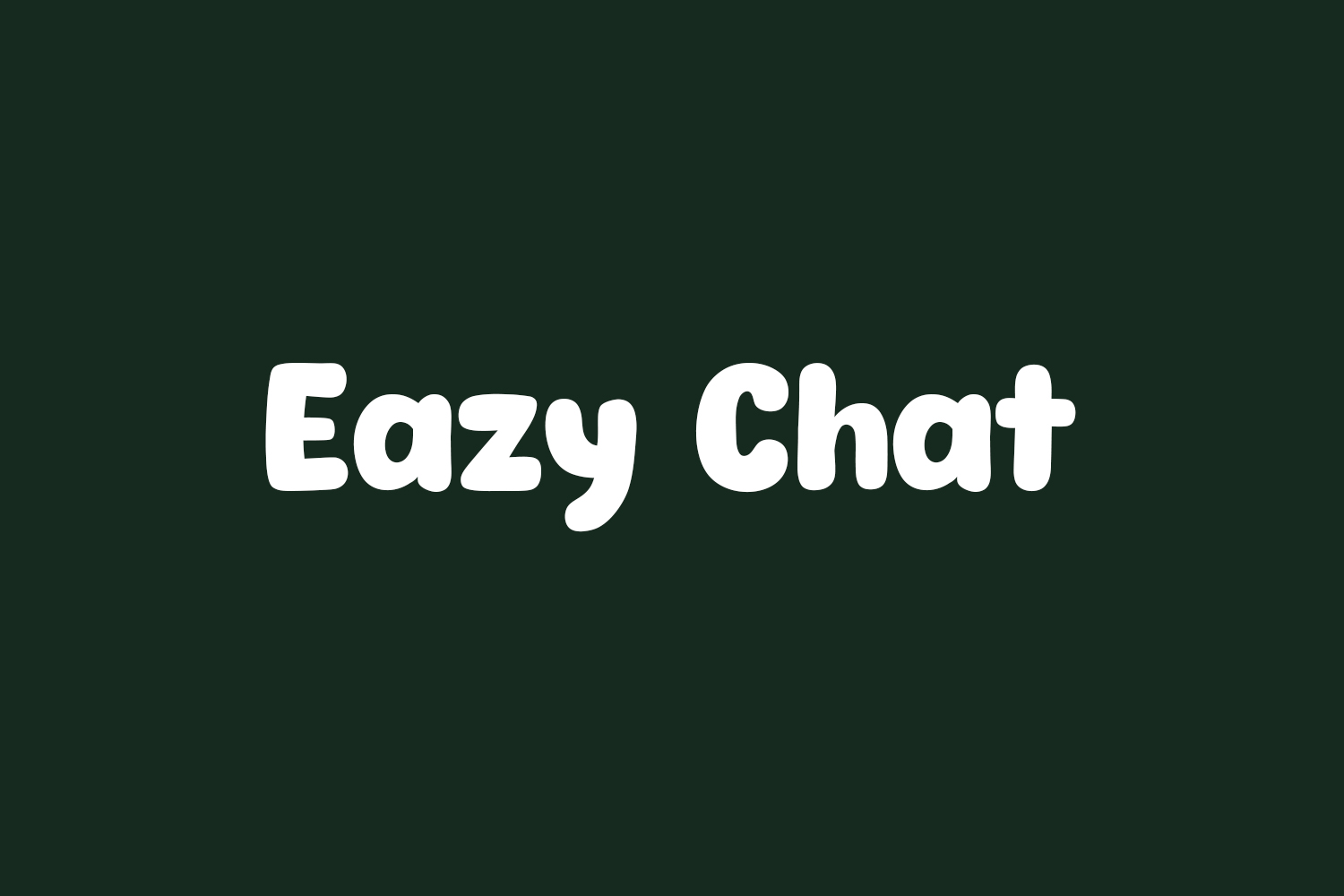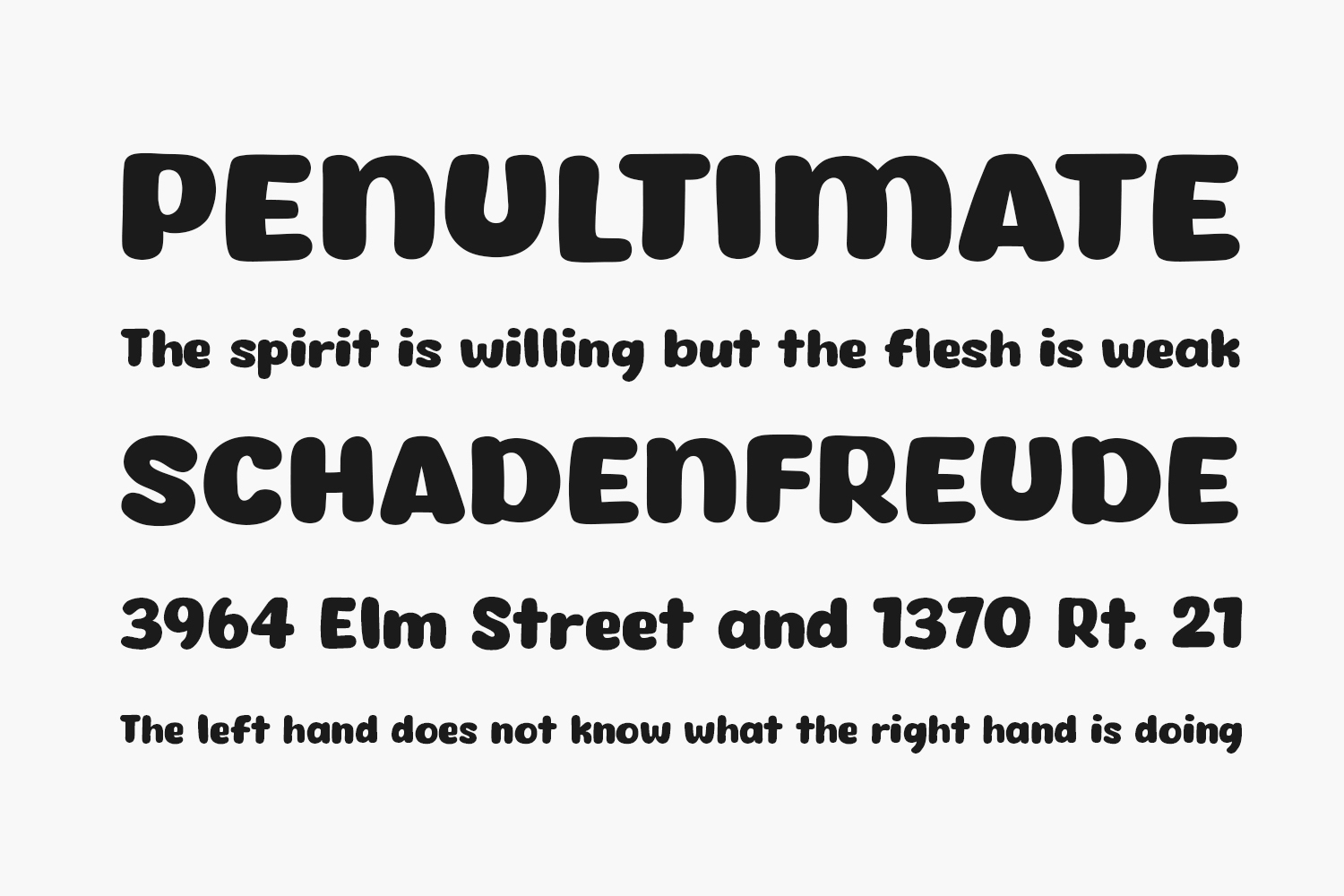
Eazy Chat Free Font is a contemporary and stylish display font tailored for posters, logos, magazines, book covers, banners, and beyond! Elevate your designs with this incredible font that seamlessly enhances various creative projects. Its versatility allows it to effortlessly complement a wide array of ideas, making your designs truly stand out. Download the font for free if you need it for personal or commercial use.